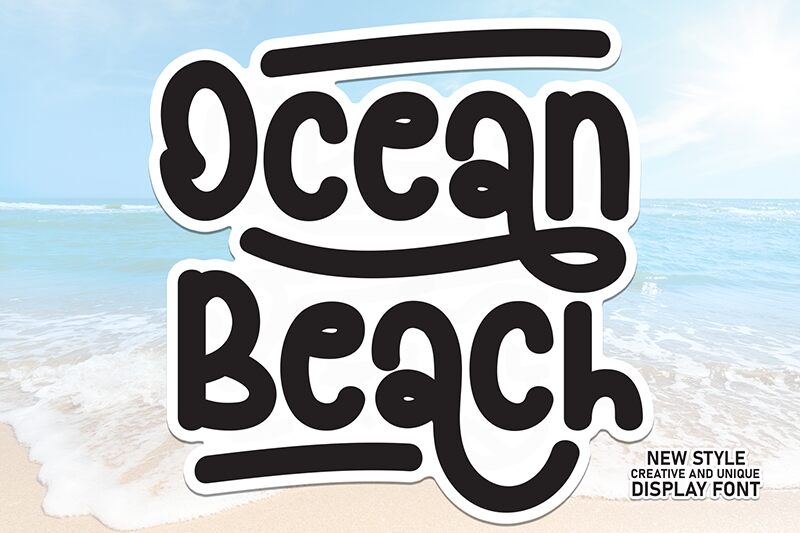
Ocean Beach
Ocean Beach font is a free brush typeface by Scratchones with a casual, playful look. Its fluid shapes and rounded edges evoke a vintage-inspired sense of nostalgia and relaxation. The font draws inspiration from retro beach signage, giving it an approachable vibe reminiscent of the 1960s or 1970s surf culture.
Use it in branding for lifestyle products related to leisure or travel, event posters with a retro theme, headlines within summer magazines, quote designs, apparel advertising projects, eye catching billboards for beach events or even on regular web & mobile applications. It also works well on packaging projects where aiming to convey that laid-back and friendly atmosphere is important.